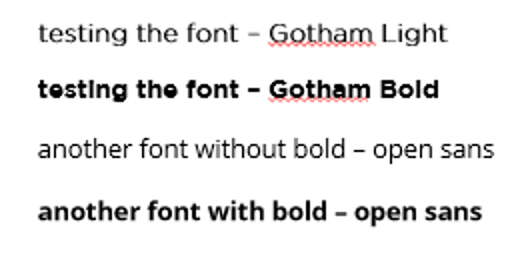
Font weight issue
Hi everyone, I have installed a new font for my storyline project and the text always becomes bold when I use it. I've tried with Word and it works just like what I wanted(not bold). Do you have any idea about this bug? By the way, the font is Gotham Light.
Attached two screenshot with bold selected and not selected. It's the same result :(
Thank you for reaching out and sharing what you are experiencing with your font. The images look like both of the samples are not bolded.
I downloaded Gotham Light and Gotham Bold, and there is a visible difference in the font-weight and is comparable to a previously installed font. I used Open Sans in my example:
Does this match what you see as well?
With font families, you want to download the other aspects to include additional options, like bold, as expected.
Actually, it's different between Gotham bold and Gotham Light bold. Gotham Light is really very Light so the bolded Gotham light looks lighter than other regular font. I've tried with another PC and it works well(image attached). BUt il's not working on my main PC even after the diagnosis on the desktop app. I've tried to reinstall storyline and the font, it's not working. :(